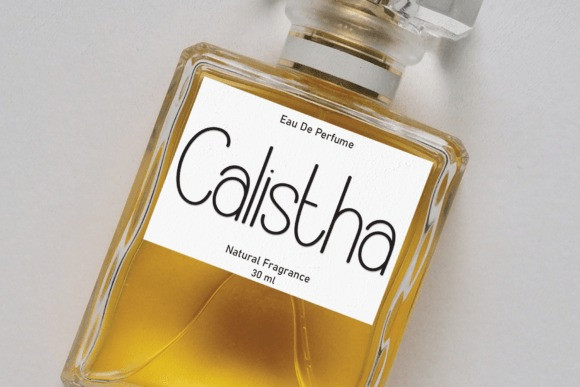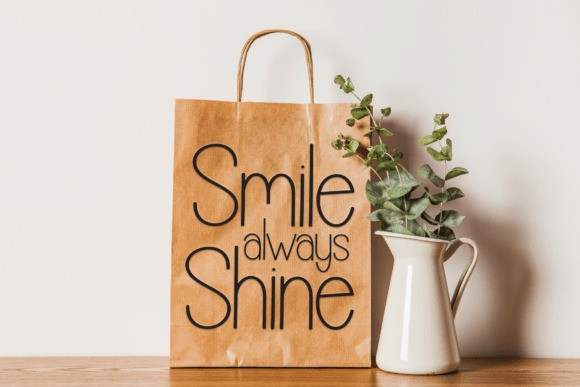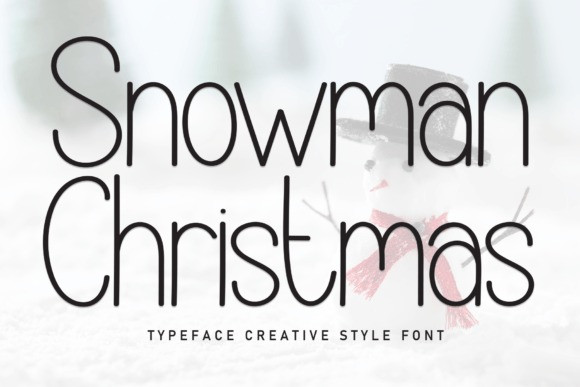
Snowman Christmas Font
Snowman Christmas Font is a sweet and friendly handwritten display font. Cute and fun, this font is ideal for writing wedding invitations, cards, or any other design that might need a fun touch!